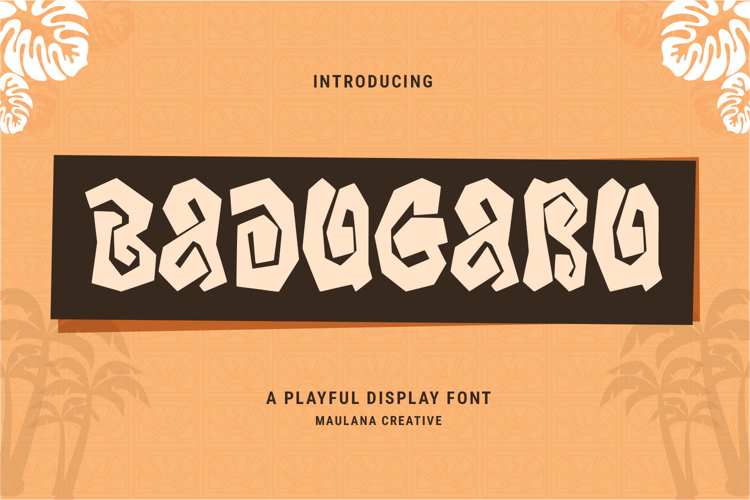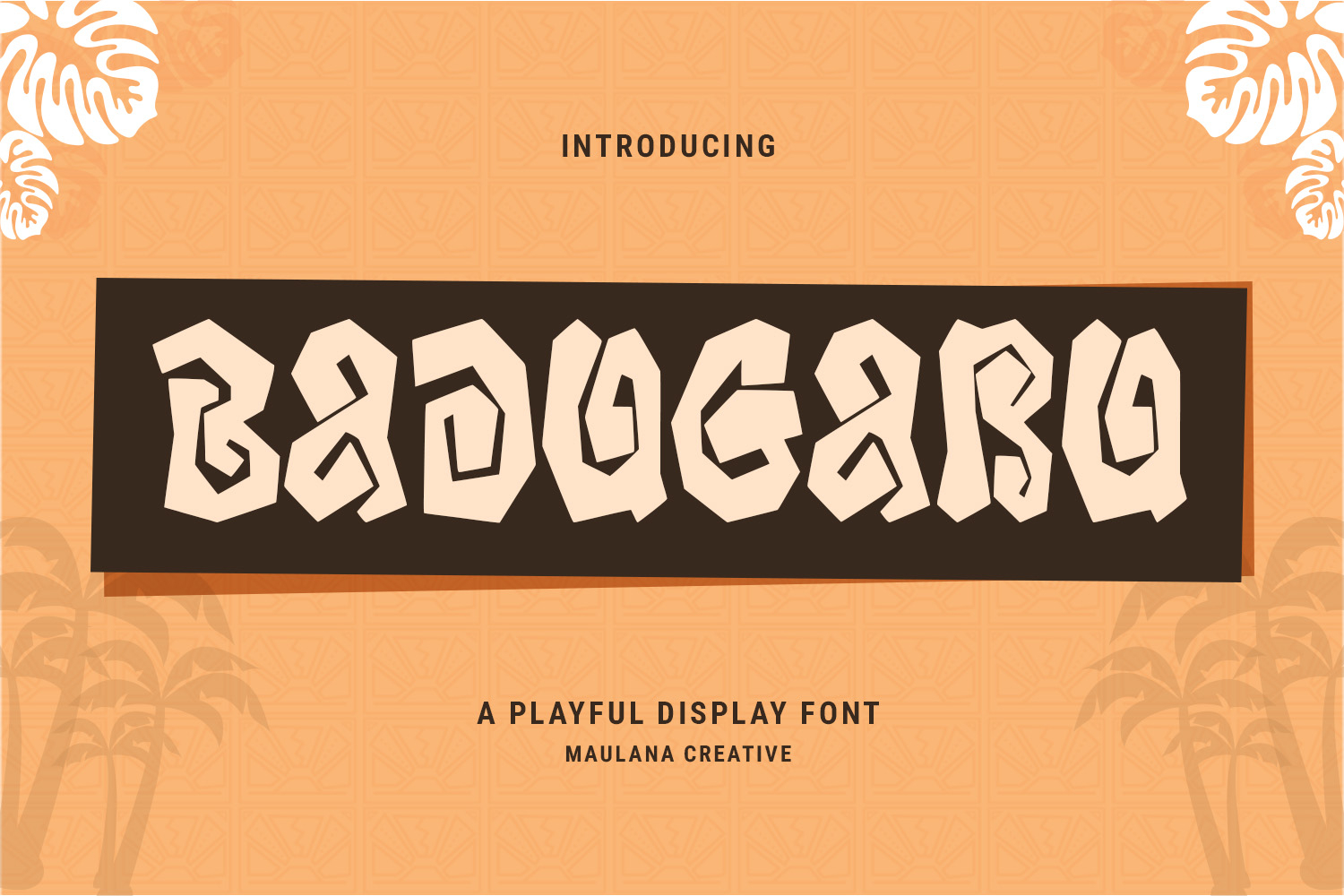
Badugaru is a playful style display font. Fun character with a bit of alternates. To give you an extra creative work. Badugaru playful font support multilingual more than 100+ language. This font is good for logo design, Social media, Movie Titles, Books Titles, a short text even a long text letter and good for your secondary text font with sans or serif. Make a stunning work with Badugaru font.